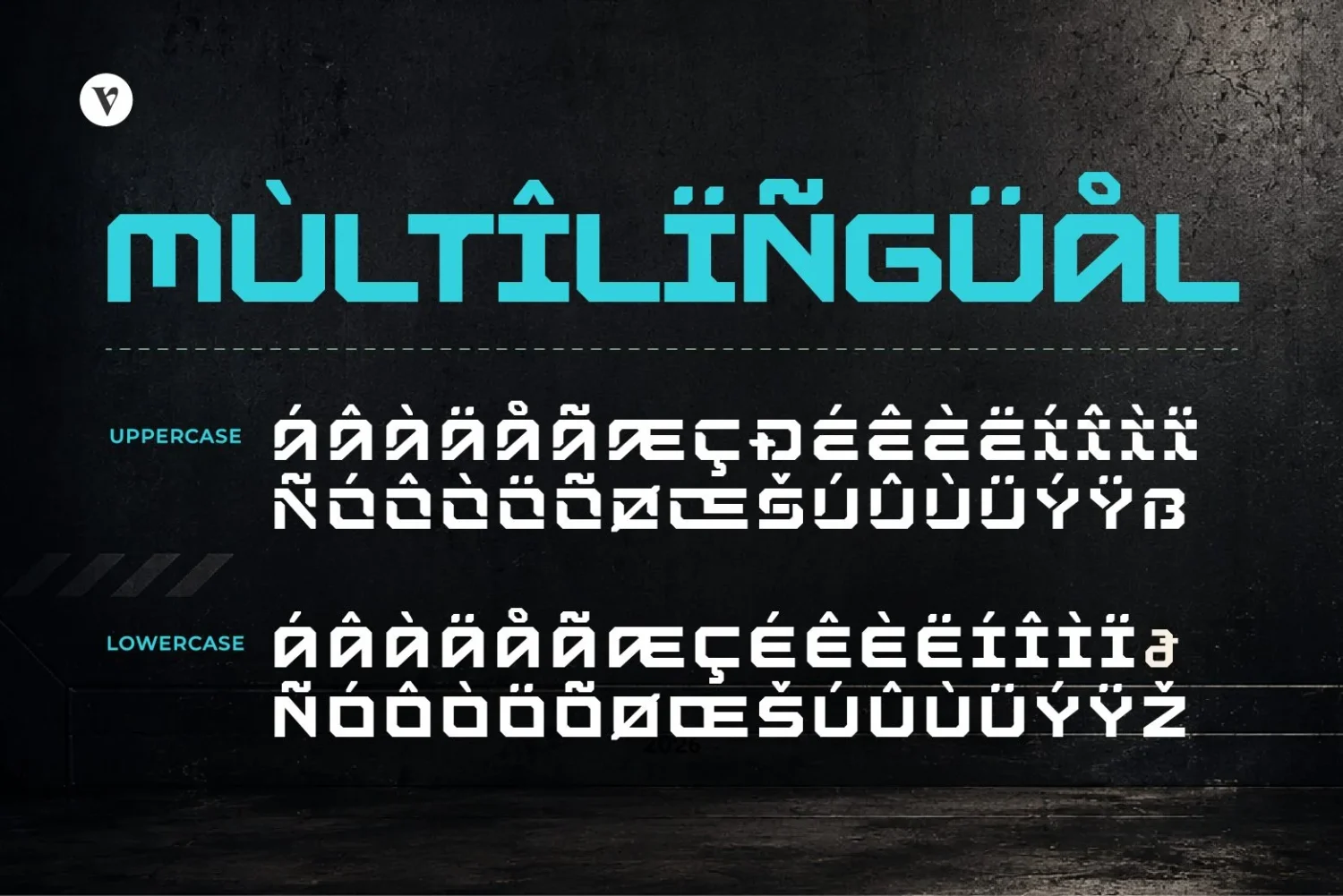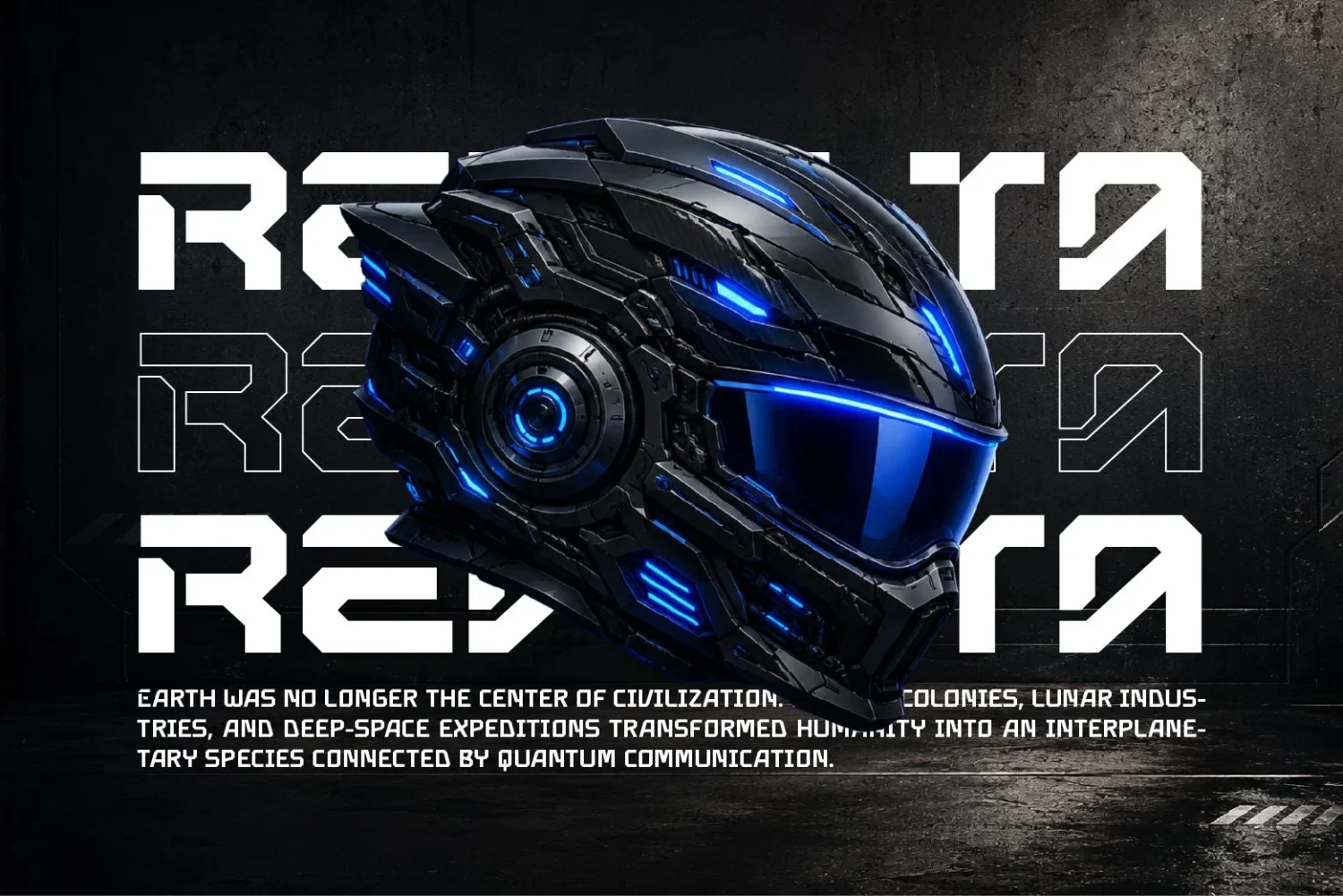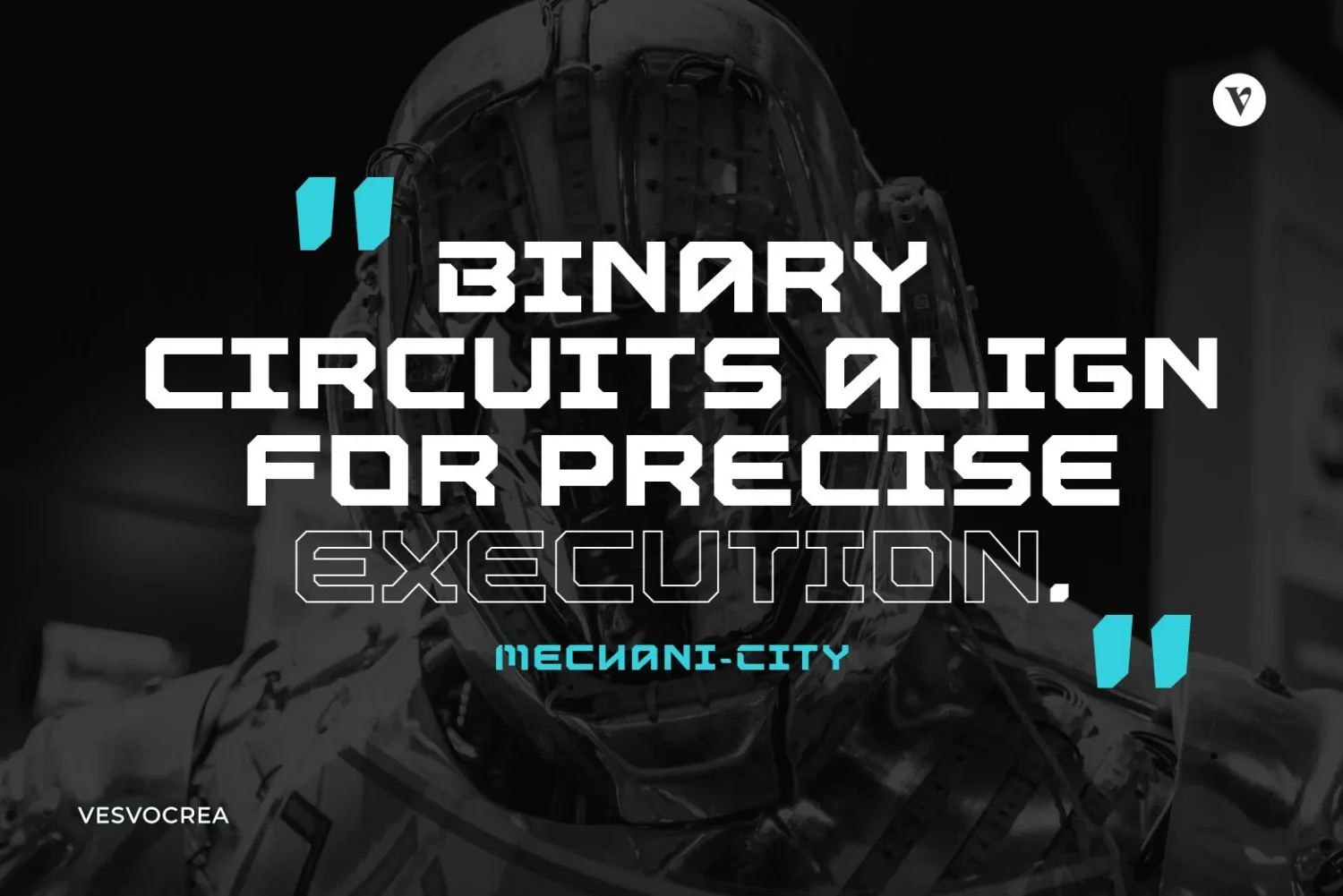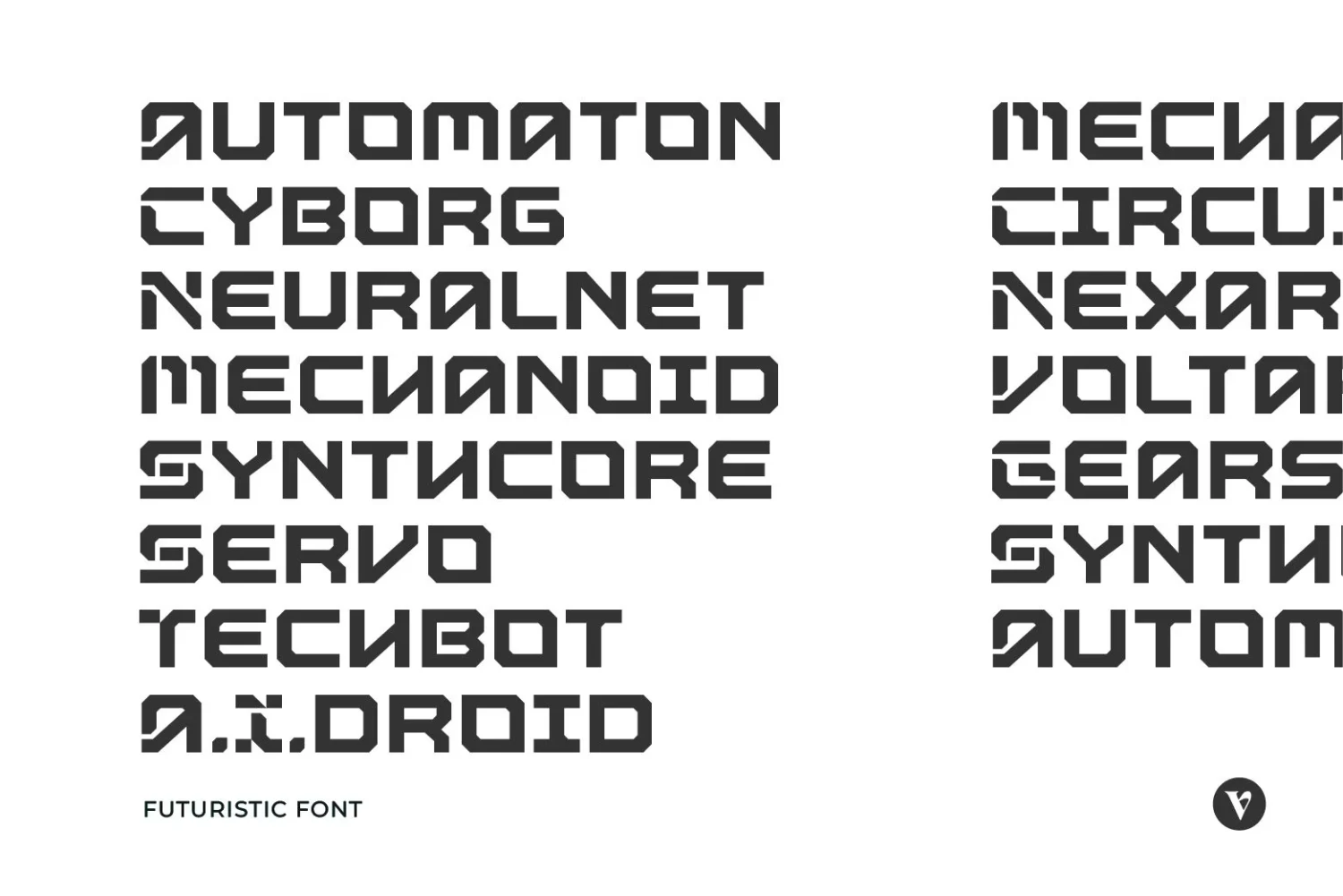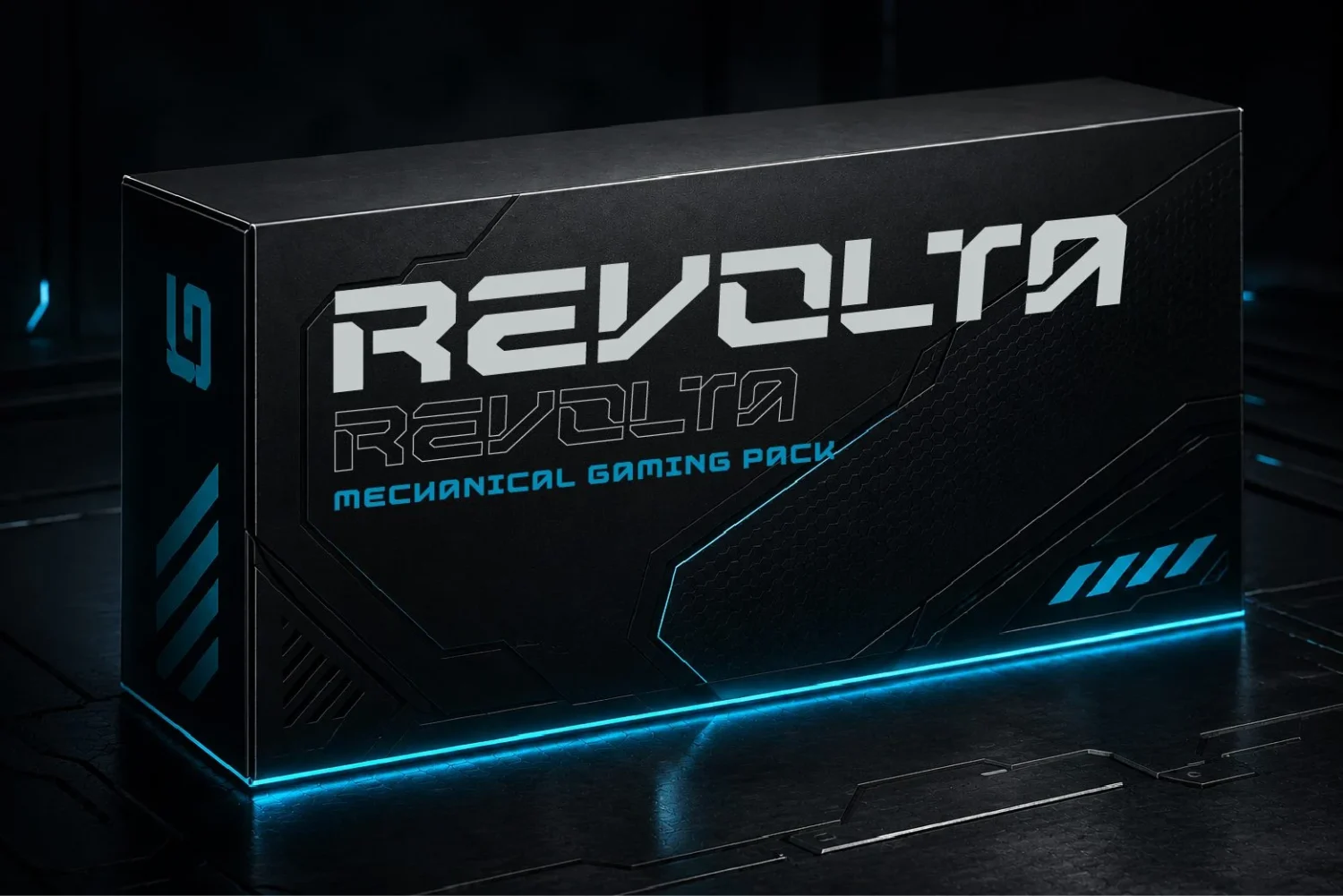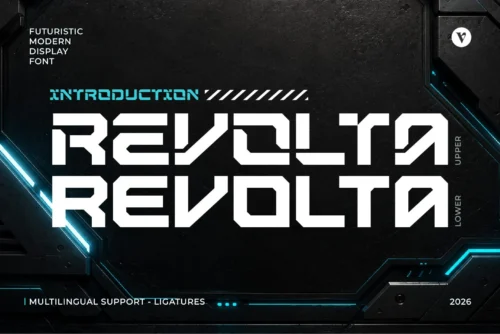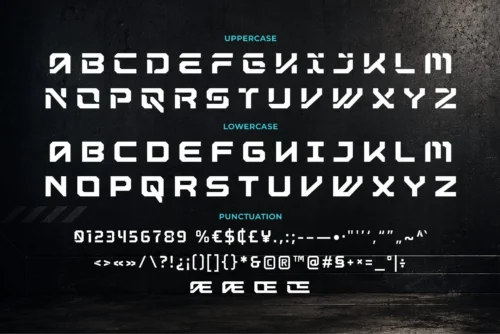
Revolta is a futuristic tech display font with sharp, geometric, and angular letterforms that create a bold sci-fi aesthetic. Designed with precision and modern technology in mind, this typeface is perfect for crafting high-impact visuals with a sleek and mechanical appearance.
Whether you’re working on logos, branding, gaming projects, posters, user interfaces, product packaging, or other creative designs, Revolta delivers a powerful futuristic style that stands out with confidence.
Perfect For
– Logos, branding, gaming, posters, user interfaces, packaging, merchandise, and more.
Features
– Uppercase & Lowercase
– Numbers & Punctuation
– Multilingual Support
This typeface has been carefully designed with attention to every detail, making it both versatile and enjoyable to use across a wide variety of creative projects.